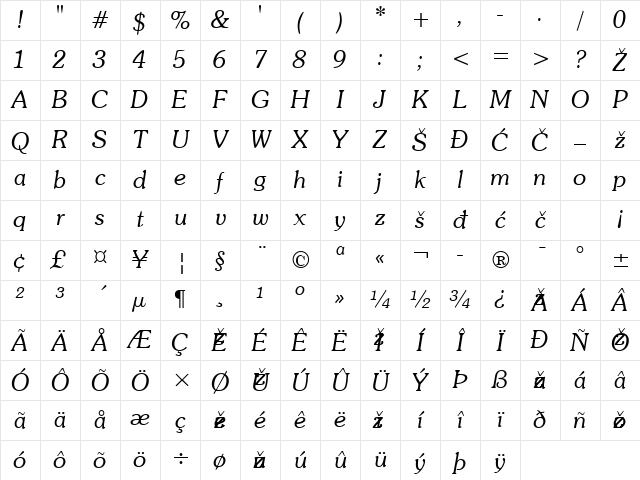
Complete Souvenir Light Italic glyph index. Displaying only characters natively supported by Souvenir Light Italic font.
Souvenir is a composed and adaptable typeface that performs quietly and consistently across a wide range of design contexts. The slanted form adds forward momentum and visual energy. Its slender proportions lend an understated elegance to any composition.